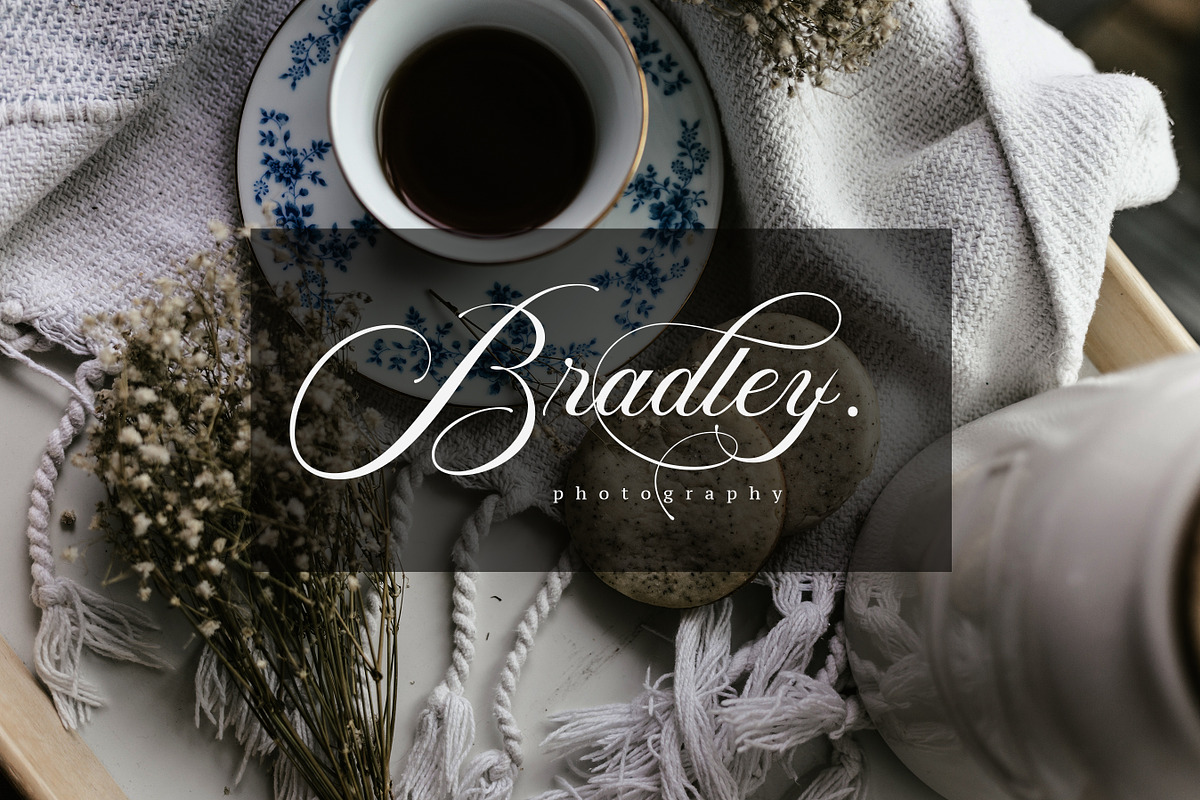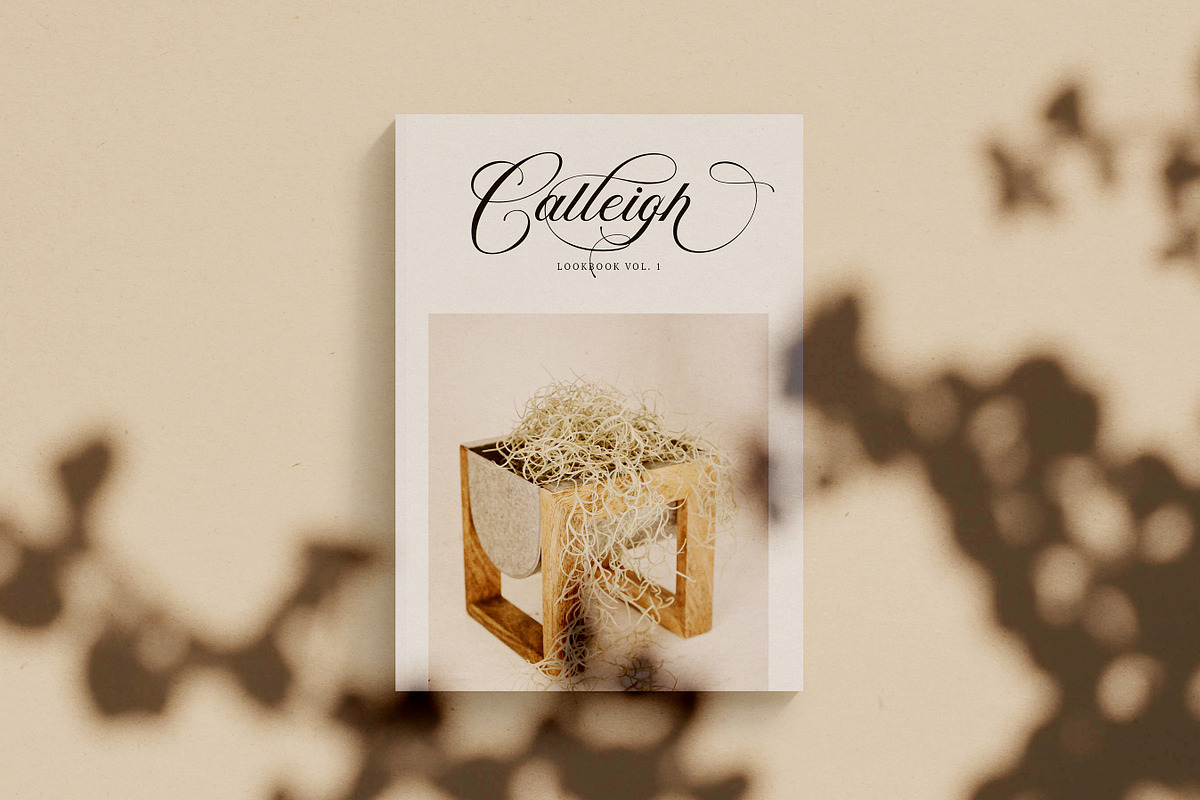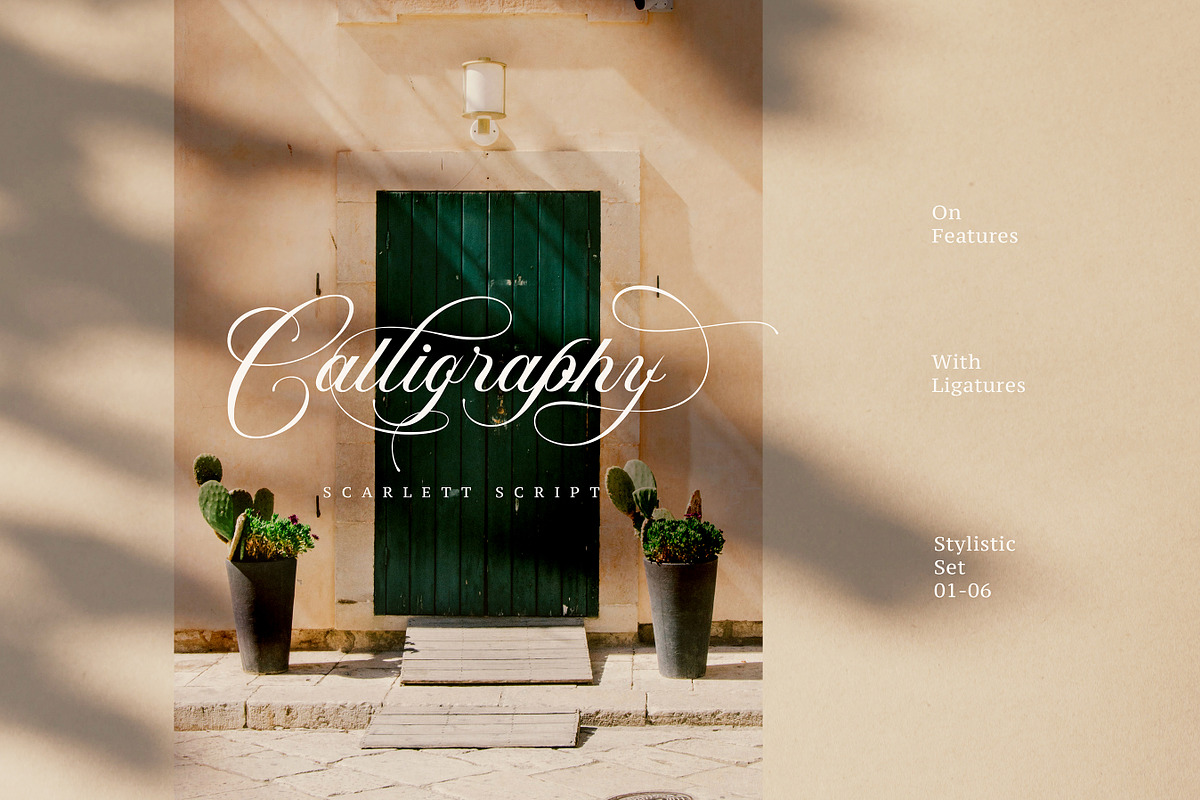
Scarlett | Elegant Calligraphy Font
holla Its Scarlett here, a Elegant Calligraphy typeface perfect for your next project.
Scarlett great for wedding, event, invitation, escort card, table number, header menus, display, logos, slider blog, custom address, stamps, packaging, greeting card, etc.
Numeral & Punctuation
Stylistic Alternates 01-06
- Scarlett Script